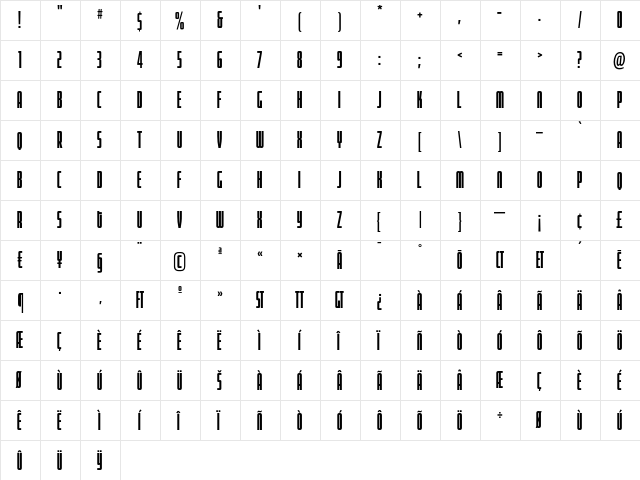
MorganTw1 Regular
Design Context for MorganTw1 Typeface
MorganTw1 is a composed and adaptable typeface that performs quietly and consistently across a wide range of design contexts.